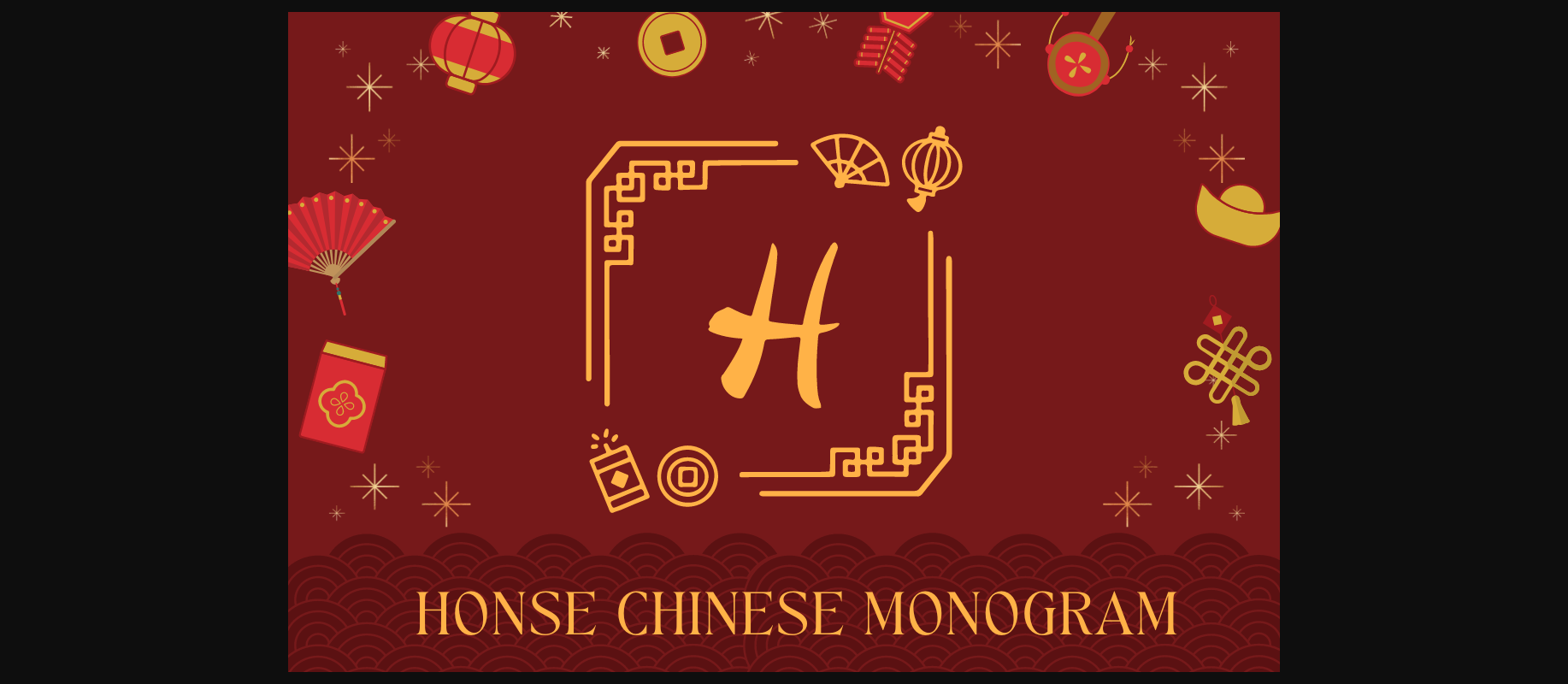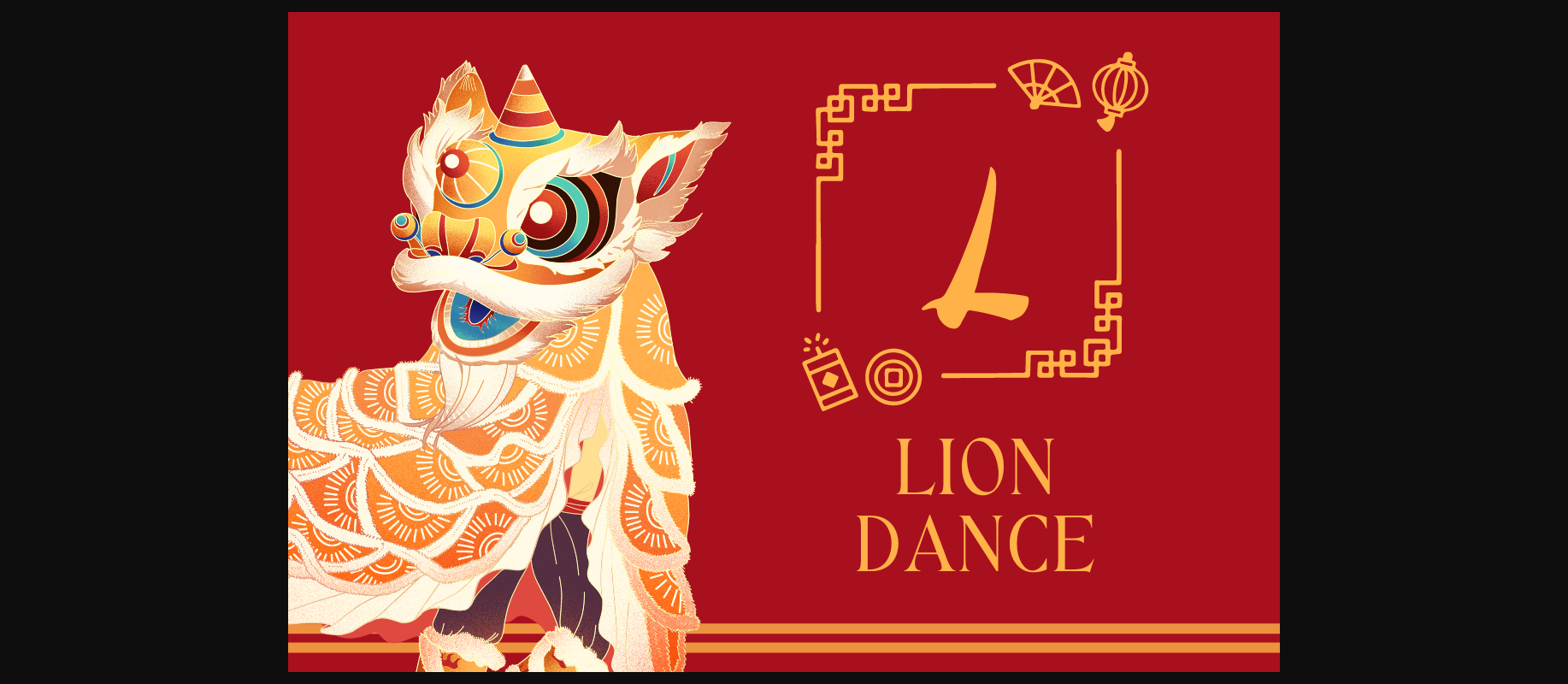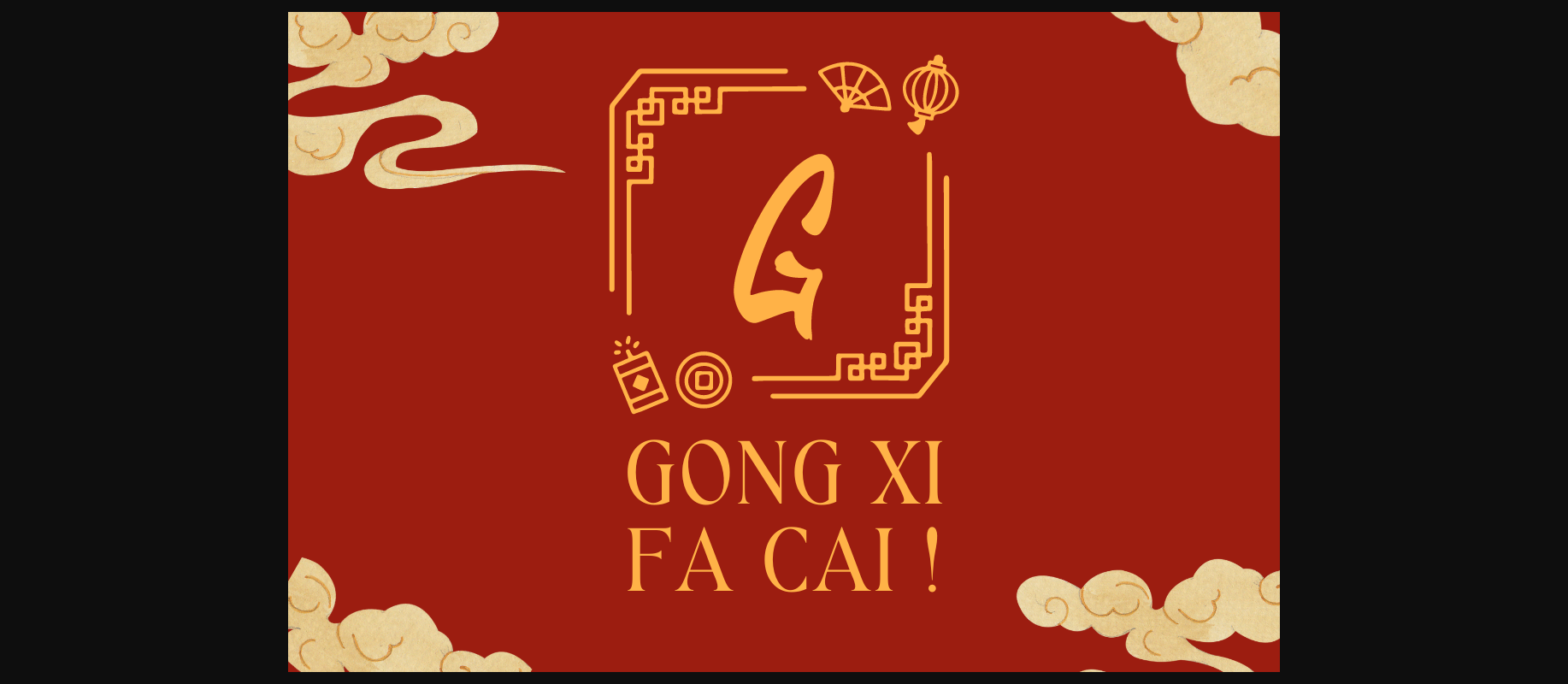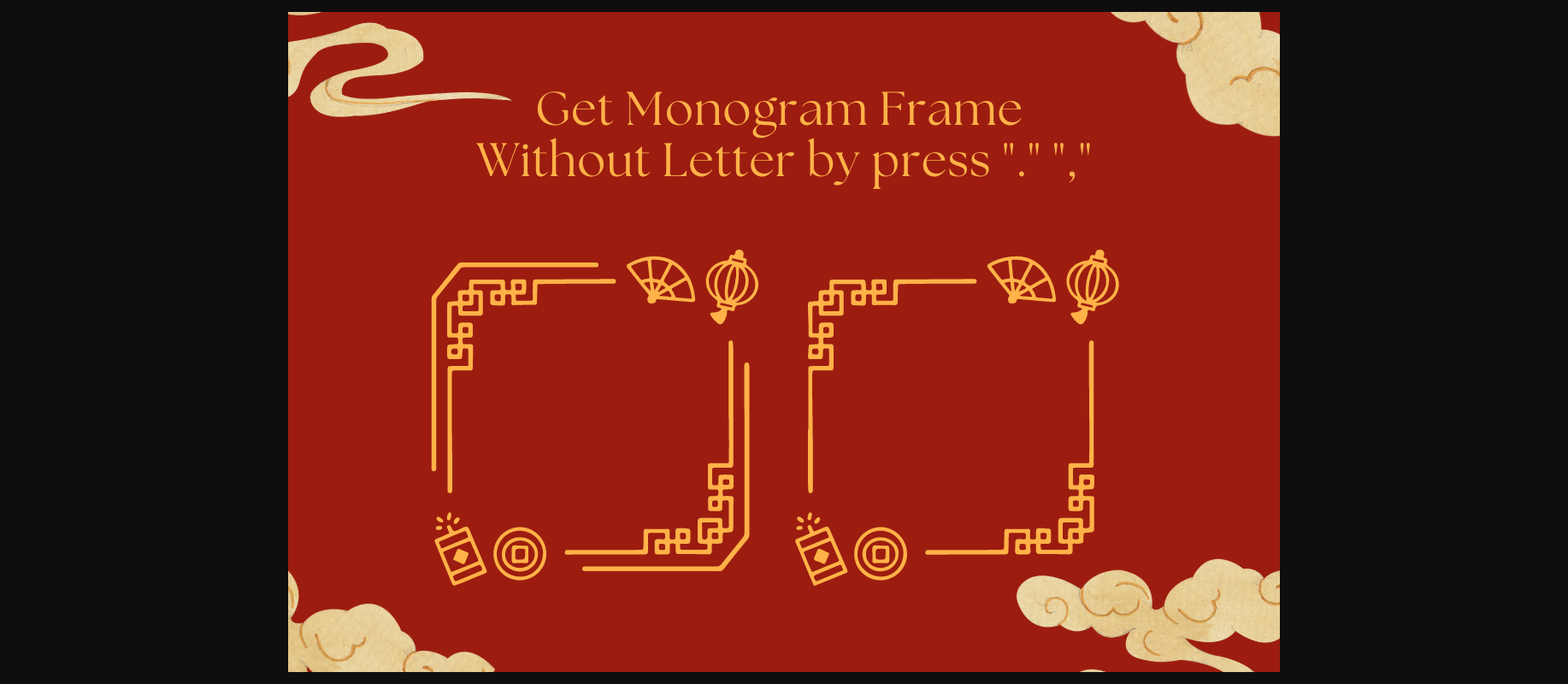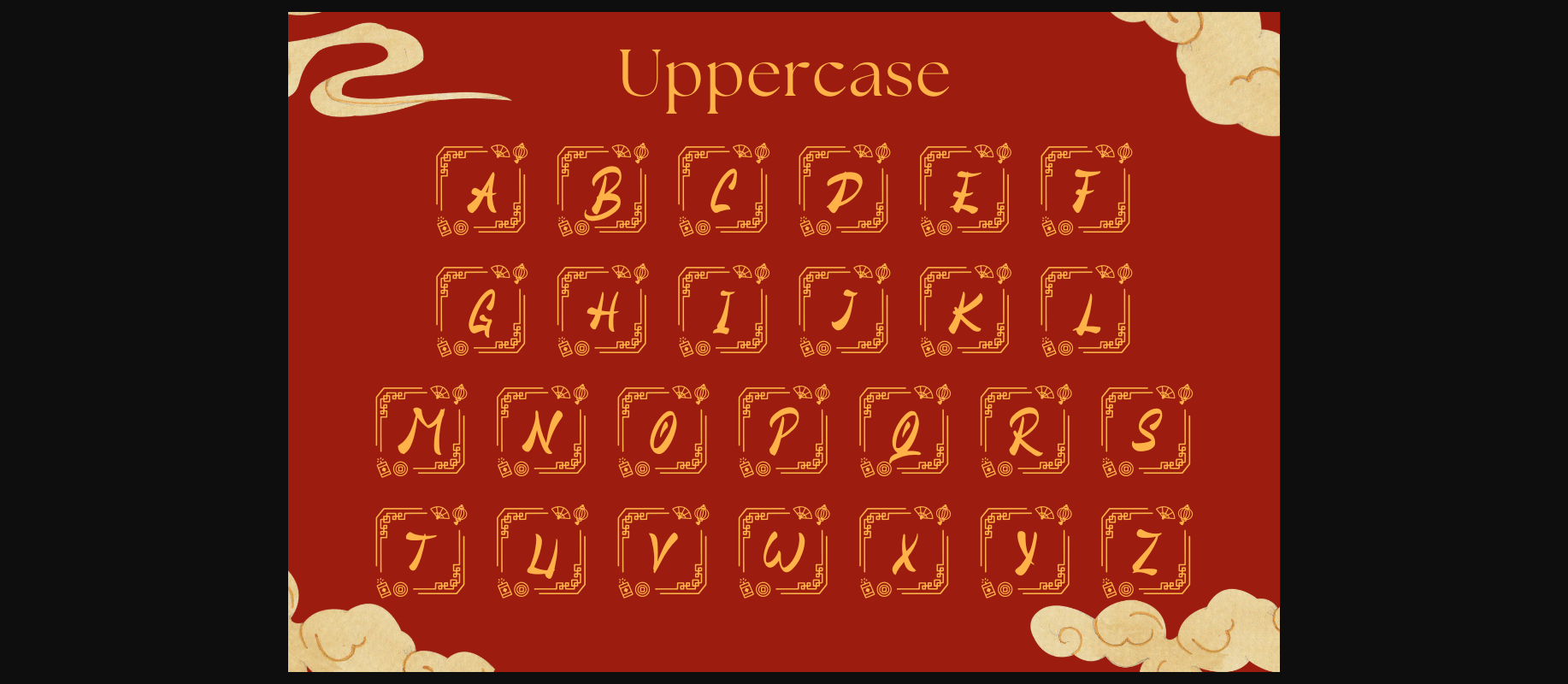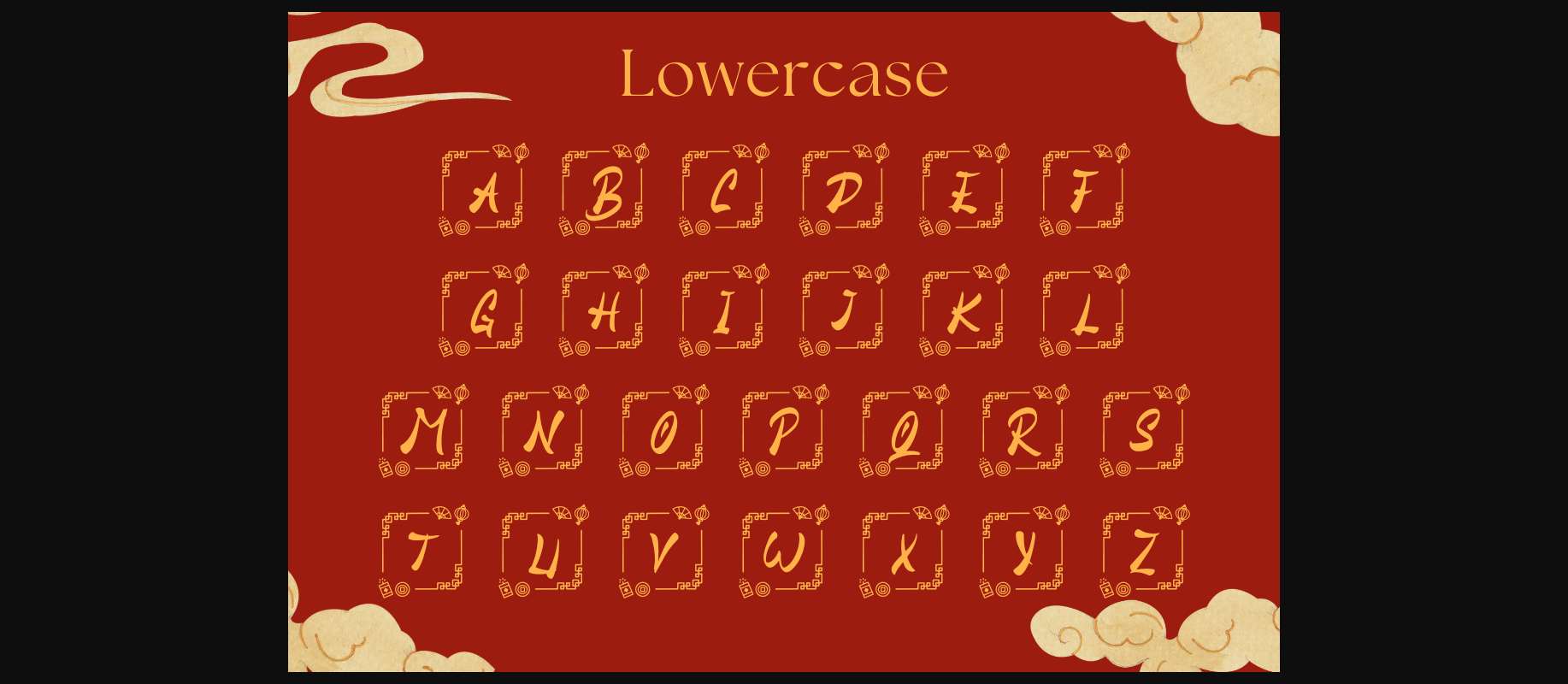
Honse Chinese Monogram Font
About Honse Chinese Monogram Font
Honse Chinese Monogram is a square display Chinese ornament monogram.
This font can be used to make Chinese new year themed gifts, including textiles, gifts for kids, and the perfect gift for a new homeowner, a Chinese family, or anyone with a love of monograms.